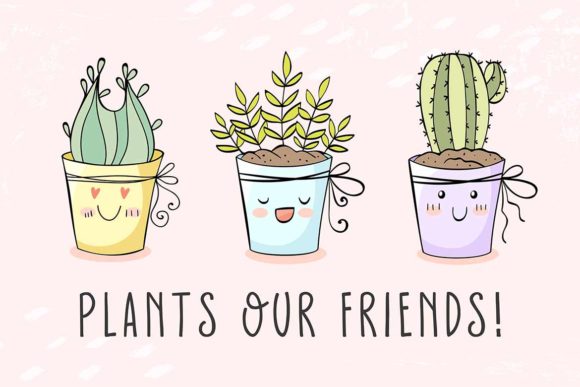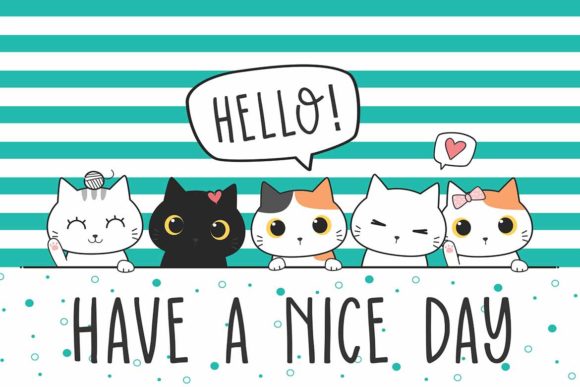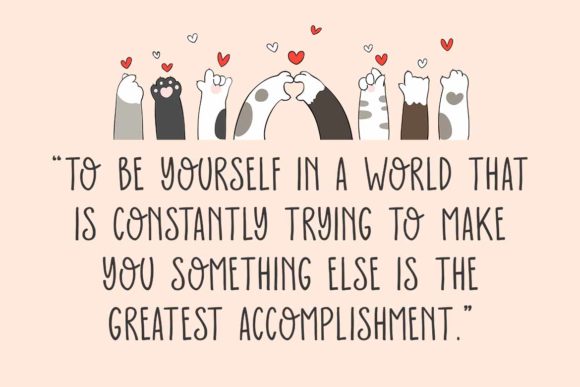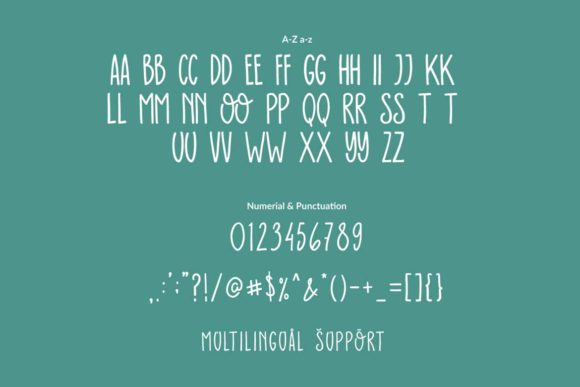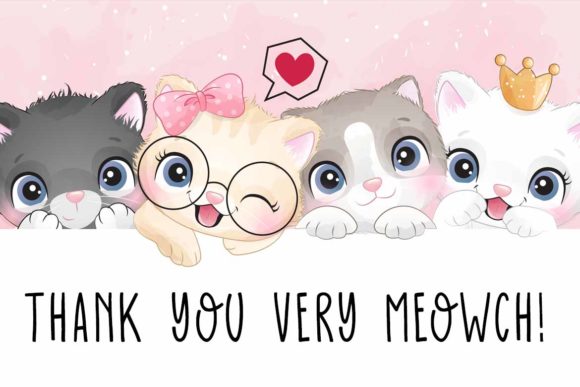
Introduction to Paradise Island Font
Have you ever been working on a creative project, pouring your heart and soul into every detail, only to feel like something’s missing? You’ve got the perfect concept, the ideal color palette, but the typography just isn’t quite right? This is where the magic of a high-quality font comes in – and we’ve got just the thing to save the day.
Meet the Paradise Island Font, a stunning display font that’s as beautiful as it is versatile. With its minimalist design and neat aesthetic, it’s the perfect design resource for any project that needs a touch of elegance and sophistication. Whether you’re working on a free download or a commercial venture, this font is sure to elevate your design to the next level.
But what really sets Paradise Island Font apart is its transparent background, making it easy to layer and customize to fit any creative vision. And with its high-quality design, you can trust that your project will look amazing, no matter what.
Key Features of Paradise Island Font
- High-quality design resource for creative projects, ideal for tropical or island-themed designs.
- Features a transparent background, allowing for seamless integration with any design.
- Comes in a range of sizes, from 10pt to 100pt, making it suitable for various design applications.
- Designed with a unique, hand-drawn style that adds a touch of whimsy and personality to any design.
Honest Review: Paradise Island Font
I recently had the chance to work with the Paradise Island Font, and I must say it’s been a delightful addition to my design resource library. One of the standout features of this font is its ✨ high quality design, perfect for any creative project that requires a touch of tropical charm.
- Beautiful, detailed illustrations that add a unique touch to designs
- Clear and transparent background, making it easy to layer with other elements
While the Paradise Island Font is a great addition to any design library, there are a few limitations to be aware of:
- ⚠️ Limited font styles available, which may not be suitable for every project
- ⚠️ Some characters may not be as detailed as others, which could be a drawback for designers who require precision
Overall, I’m thoroughly impressed with the Paradise Island Font. It’s a great design resource for anyone working on a creative project that requires a touch of tropical flair. While it may have some limitations, the high quality design and transparent background make it a valuable addition to any design library.
Tips for Getting the Most Out of Paradise Island Font
Use the font in combination with other design elements to create a cohesive look. Experiment with different font sizes, colors, and styles to add visual interest. Consider using the font on a transparent background to create a sense of depth and dimension.
Common Use Cases for Paradise Island Font
The Paradise Island Font is ideal for designing beach-themed projects, such as invitations, posters, and social media graphics. It’s also great for creating travel-themed designs, like itineraries and brochures. The font’s high-quality design makes it perfect for professional and creative projects alike.